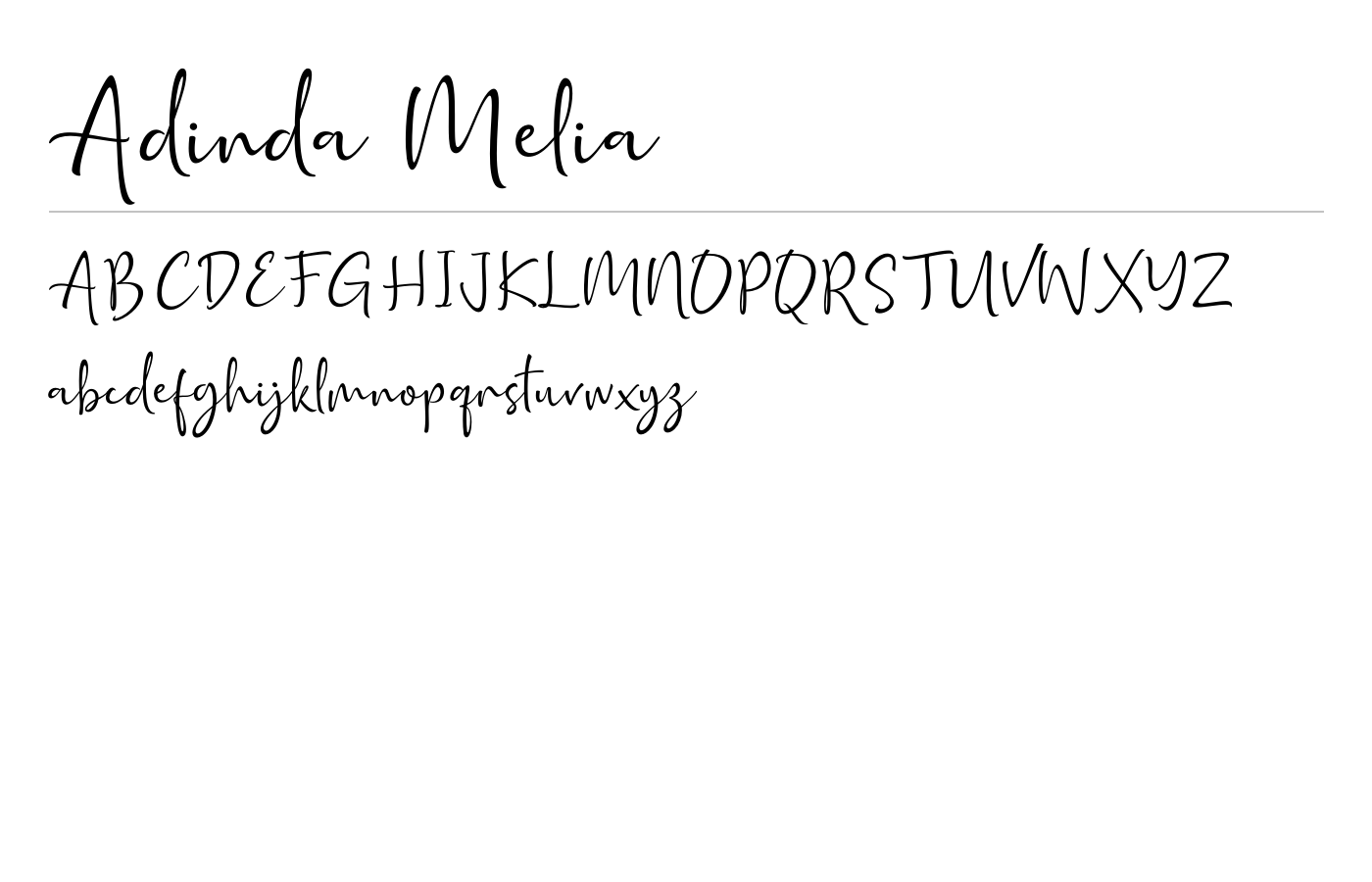
Adinda Melia is a graceful handwritten script font with a light, airy feel and delicate strokes that mimic natural penmanship. Its tall, slender letterforms and casual, slightly irregular shapes give it a charming and approachable personality, perfect for adding a personal touch to branding, invitations, and feminine design projects. This font works beautifully in logos, social media graphics, and editorial headlines where a warm, intimate look is desired.
Adinda Melia Font
About Adinda Melia Font
| Font family | Adinda Melia Font |
| Designer | Rangga Singgih Subekti. 2019 |